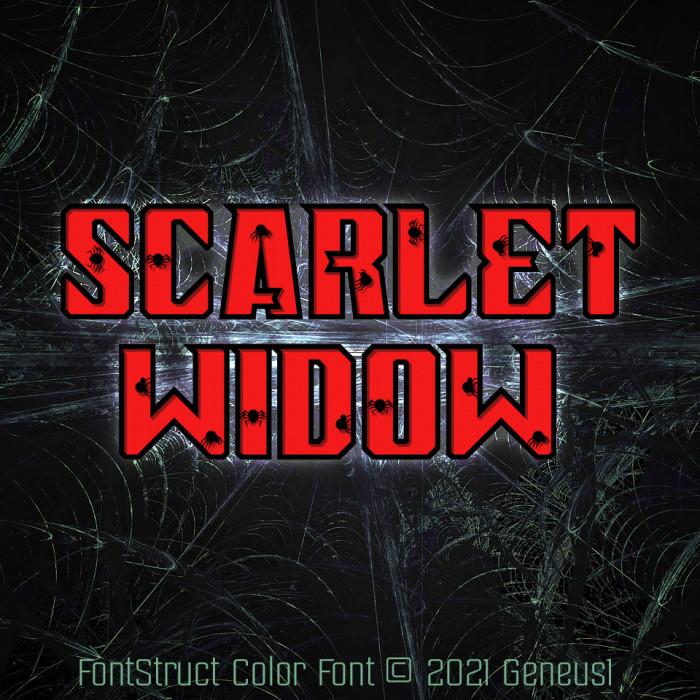
• Opening day of Marvel's Black Widow movie! Finally get to see what happened in Budapest. Haven't done this type of cinematic release in a while, so it was nice to give layered color fonts a try. Also nice to finally go out into actual movie theaters.
A lovely continuation of the cinematic styles with the smattering of spiders